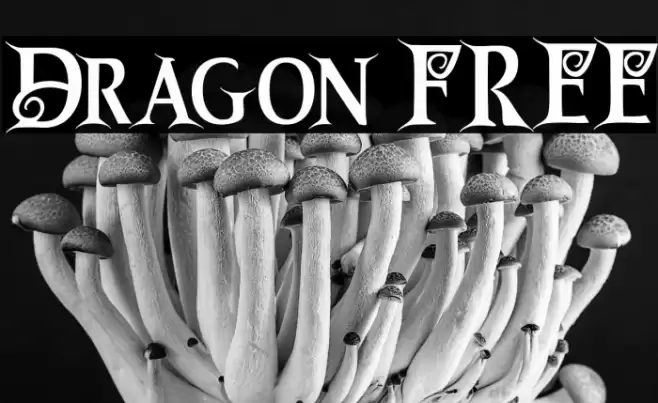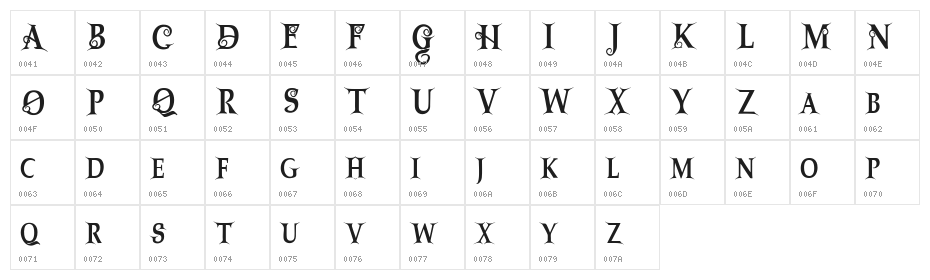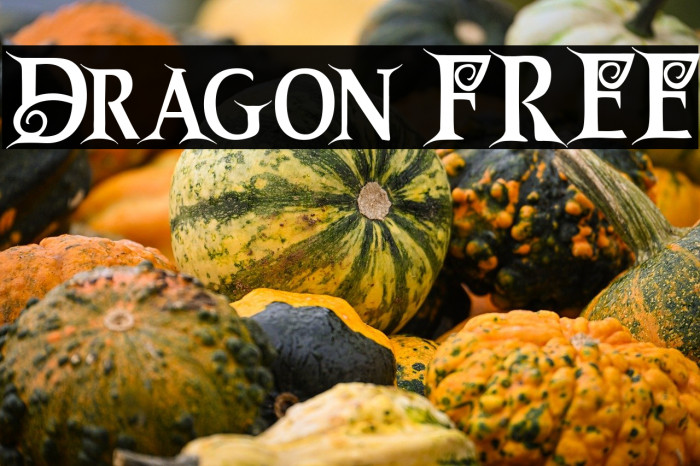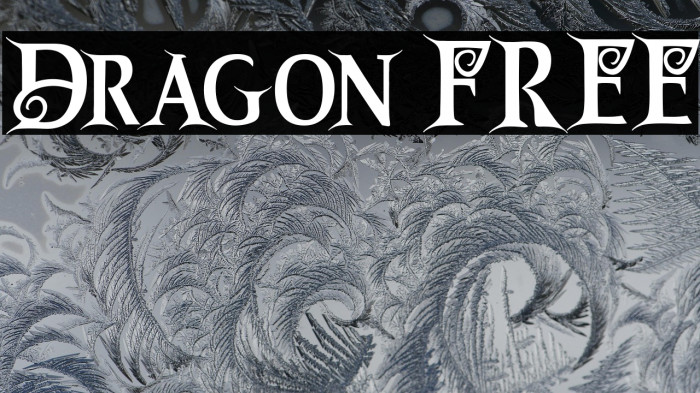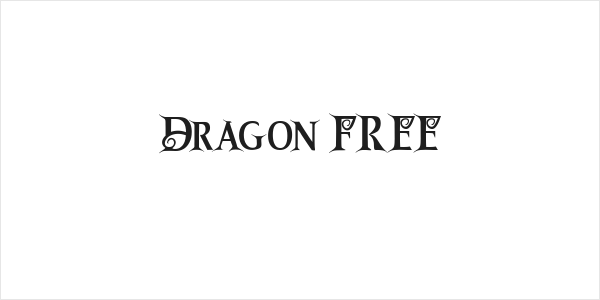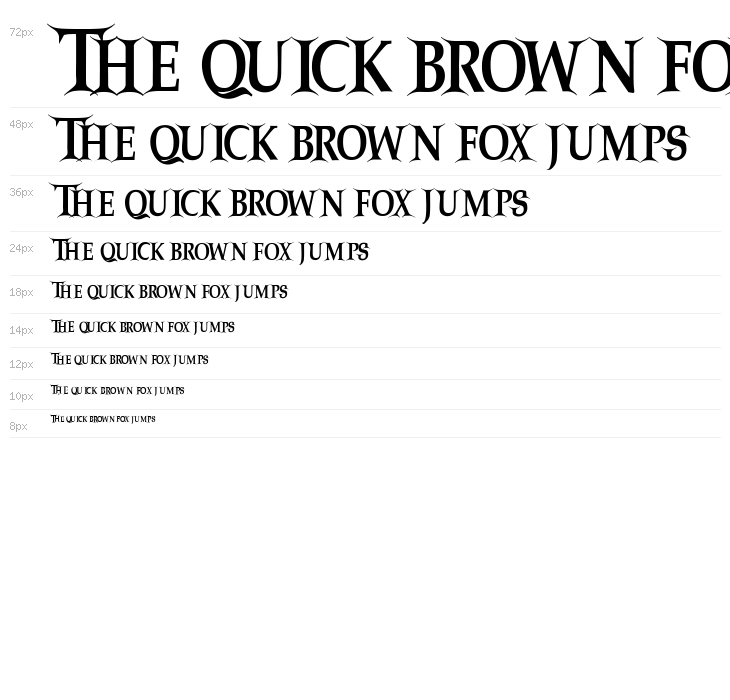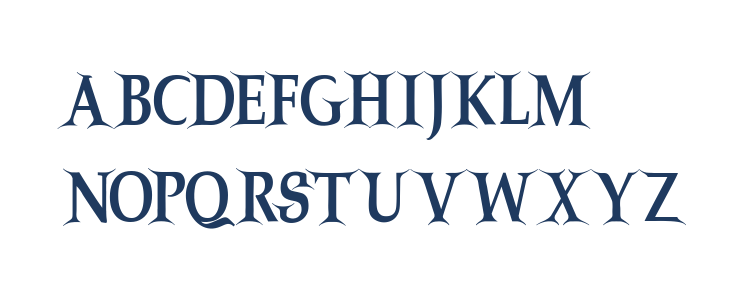
Dragon FREE Font
Dragon FREE Description
This font features a distinctive and ornate design with intricate details that evoke a sense of fantasy and medieval aesthetics. The uppercase letters are embellished with unique flourishes and curves, giving each character a dramatic and artistic flair. The overall appearance is bold and eye-catching, making it suitable for projects that require a touch of elegance and creativity. The font maintains a consistent stroke width, providing a balanced and harmonious look across all characters. Its decorative elements make it ideal for use in titles, logos, and other design projects where a strong visual impact is desired.
An ornate and decorative font with medieval-inspired flourishes from Regular fonts.
- Proposed Projects: Ideal for fantasy-themed designs, book covers, game titles, and decorative logos.